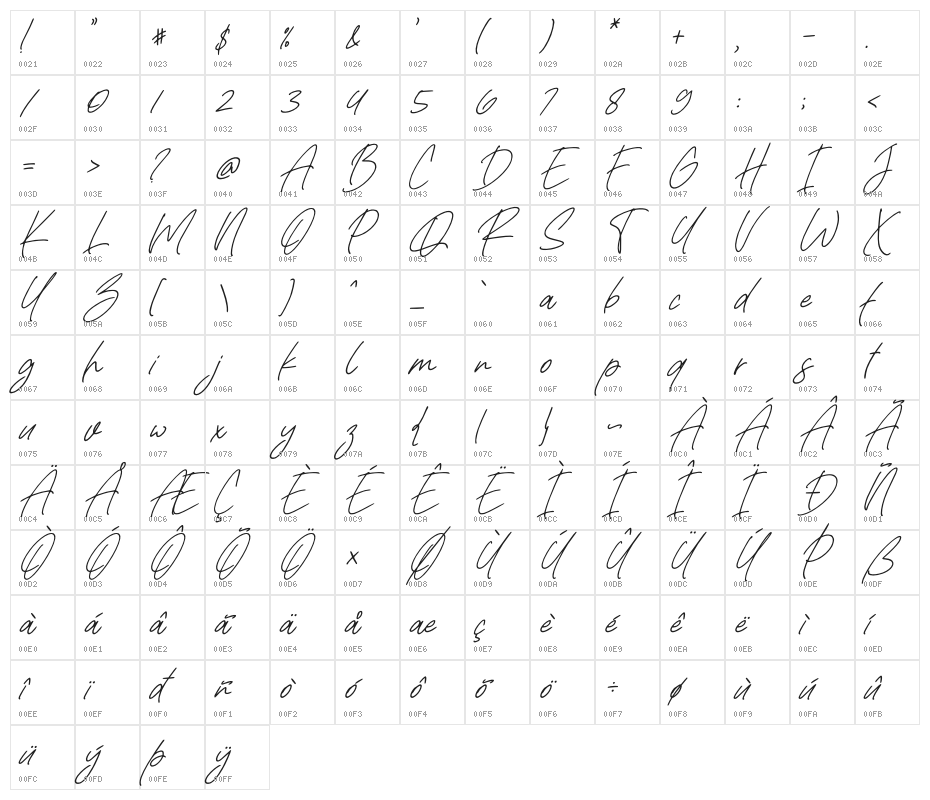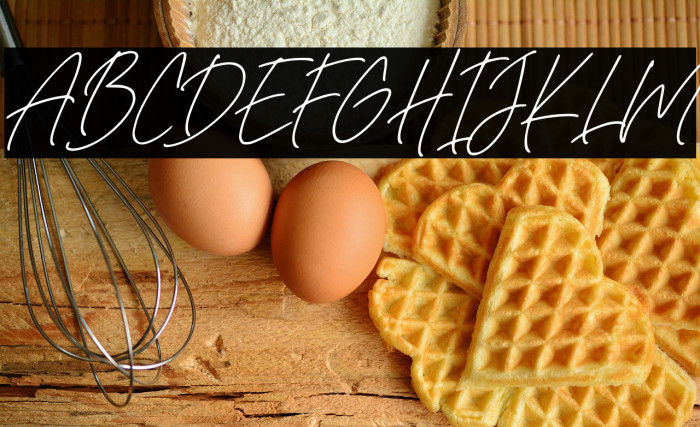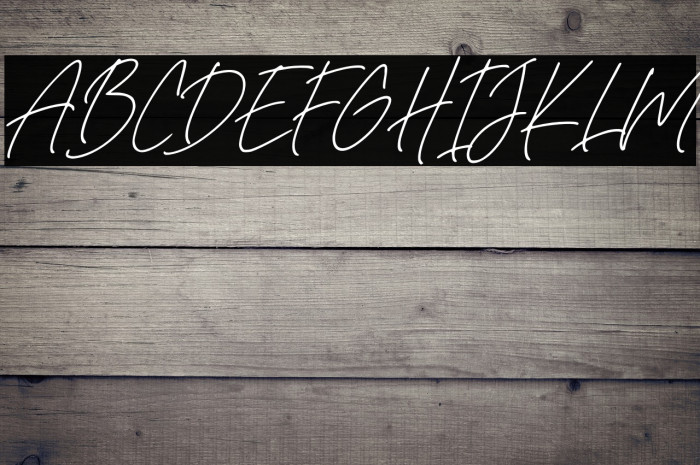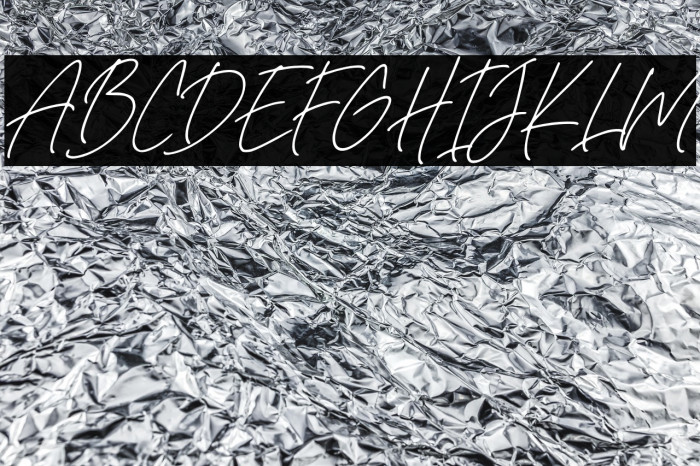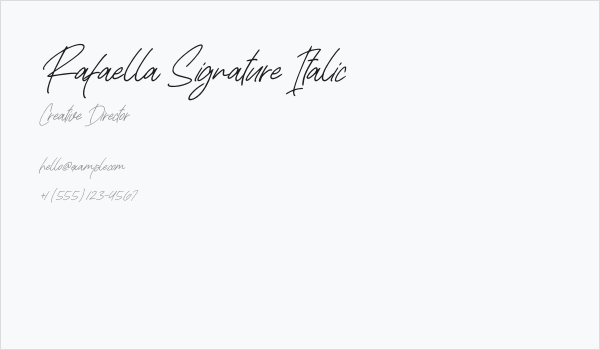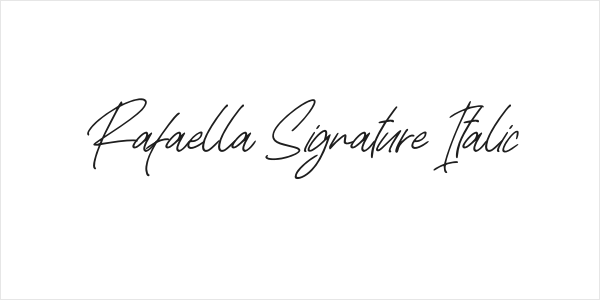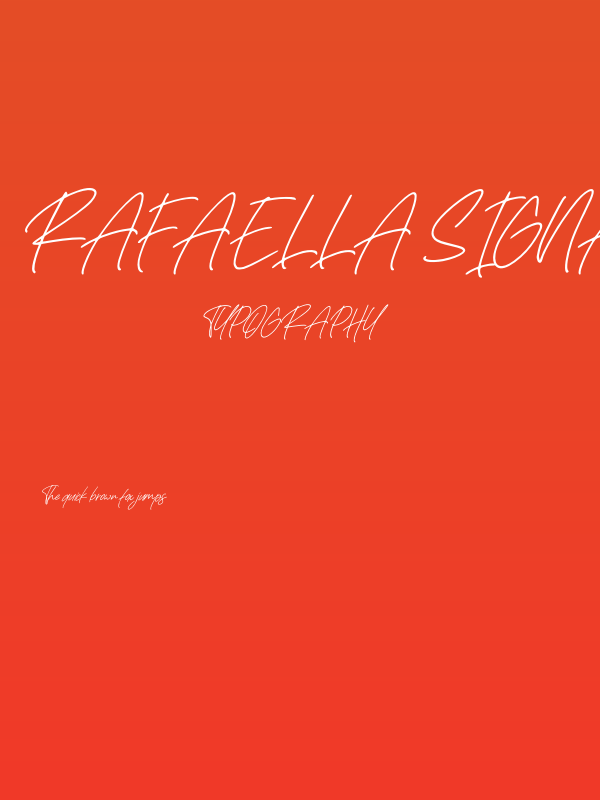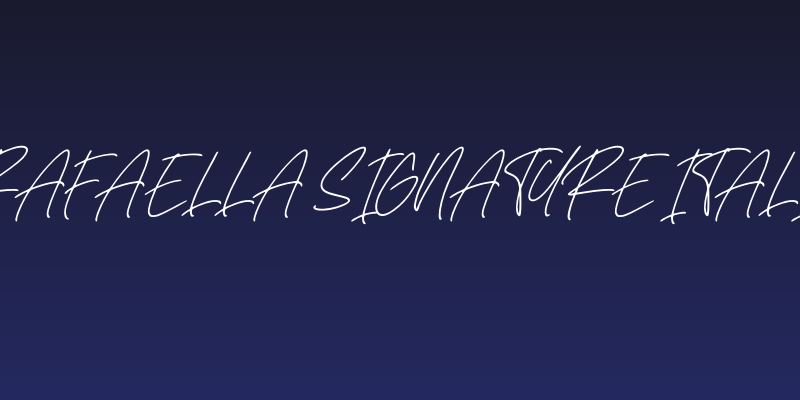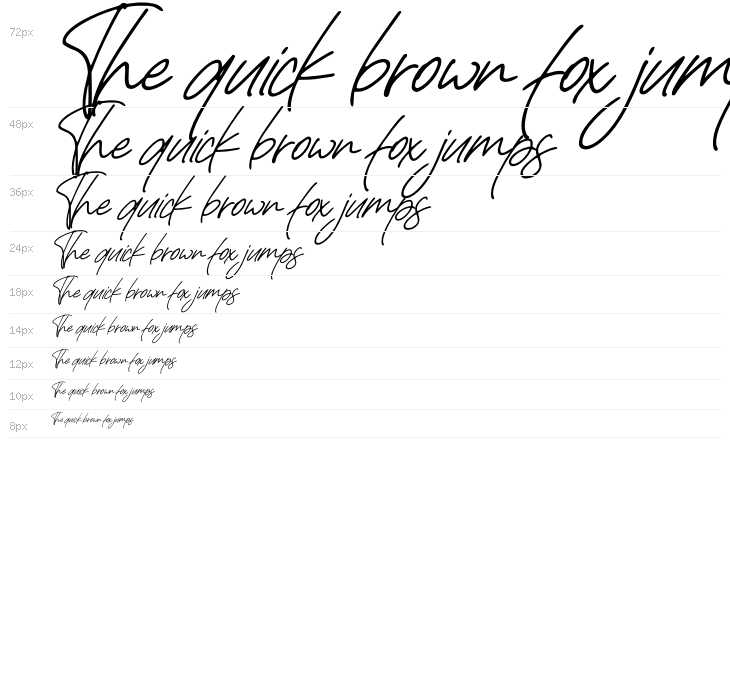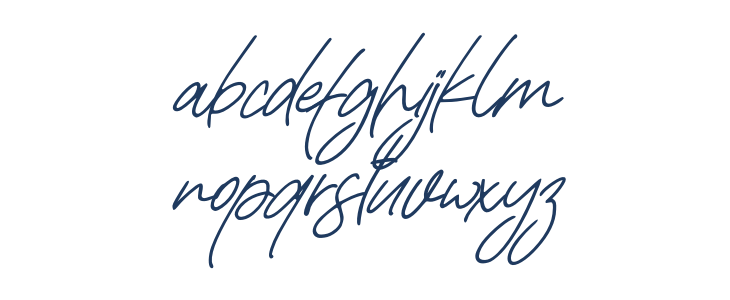
Rafaella Signature Italic Font
Rafaella Signature Italic Description
This font exudes a sophisticated and elegant handwritten style, characterized by its flowing, cursive script that mimics the fluidity of a personal signature. The letters are connected seamlessly, creating a continuous and harmonious line that enhances its graceful appearance. The strokes are thin and delicate, with a slight slant that adds a dynamic and lively touch. This font is perfect for conveying a sense of personal touch and elegance, making it ideal for projects that require a refined and stylish aesthetic. The overall design is both modern and timeless, suitable for a variety of creative applications.
| Overall Style | Elegant, Modern |
| Proposed Projects | Ideal for wedding invitations, personal branding, elegant stationery, and luxury product packaging. |